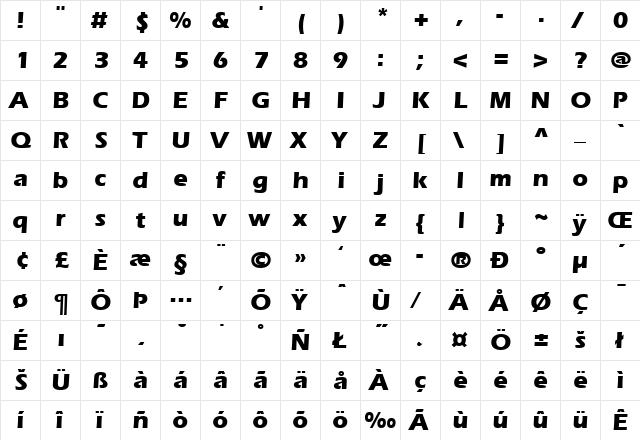
ItcEras-Bold Regular
Design Context for ItcEras-Bold Typeface
ItcEras-Bold takes a measured approach to typography — its balanced proportions and neutral character make it a reliable workhorse for both digital and print work. Its bold stroke weight gives it real presence on the page.